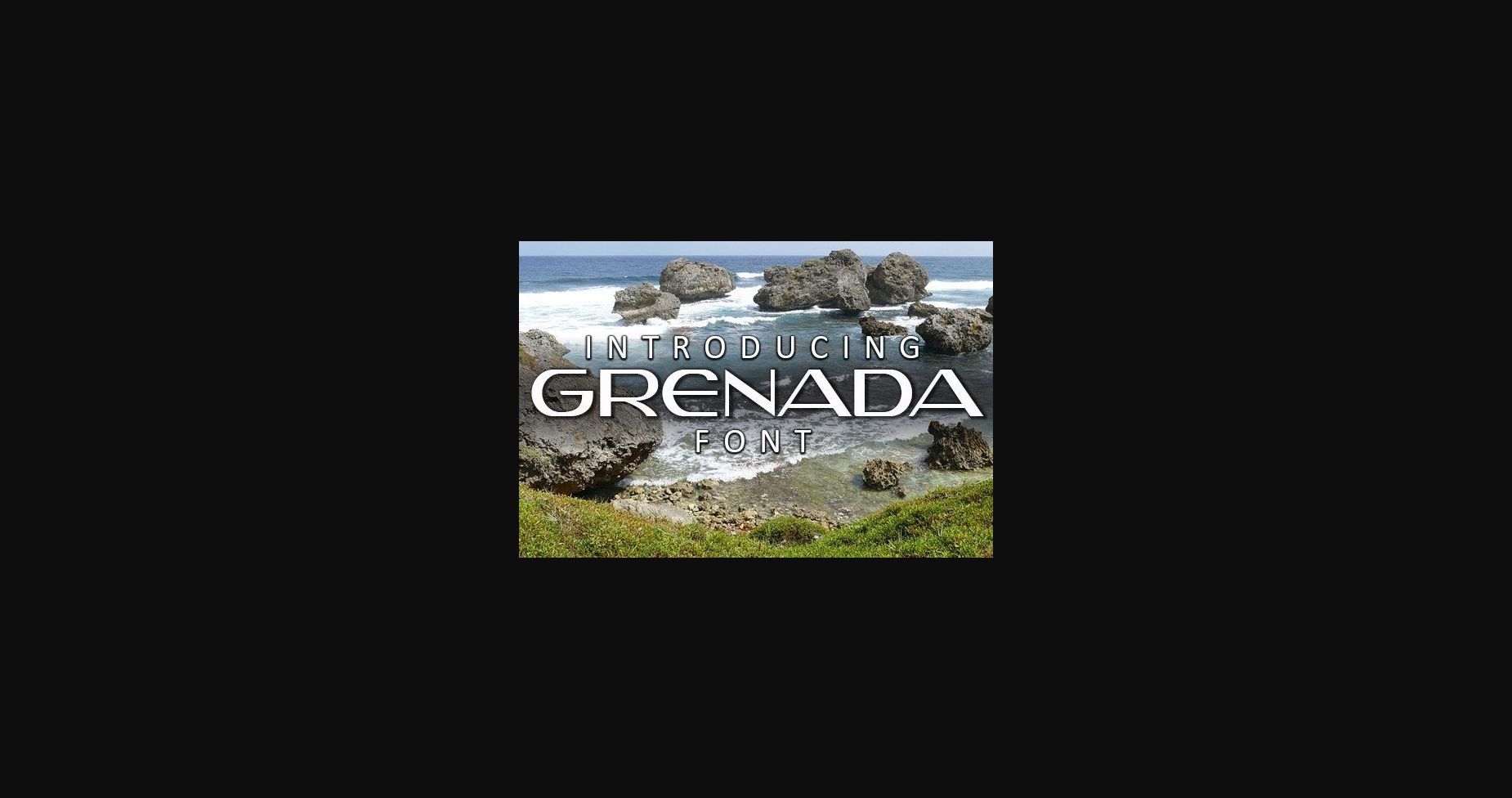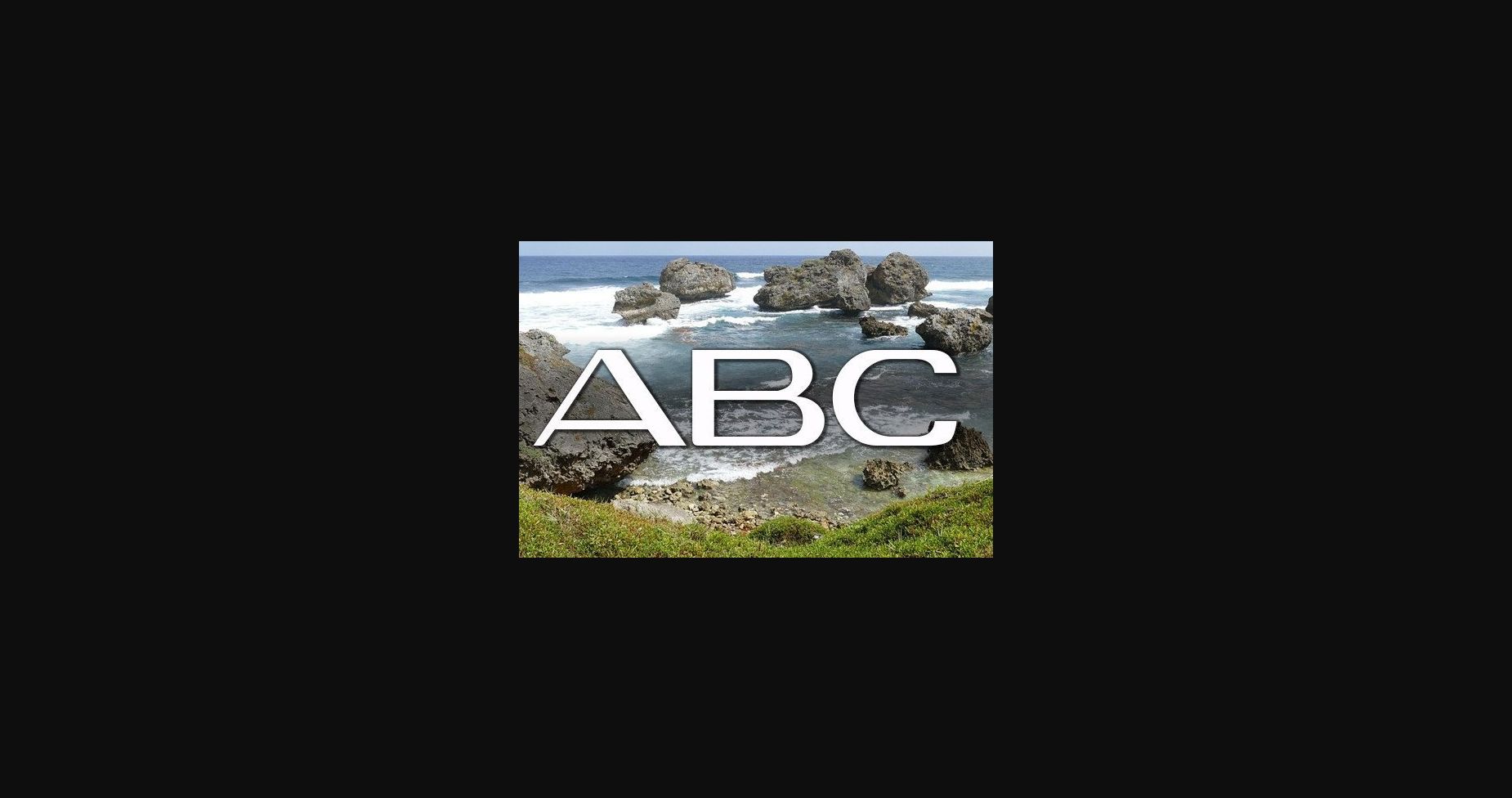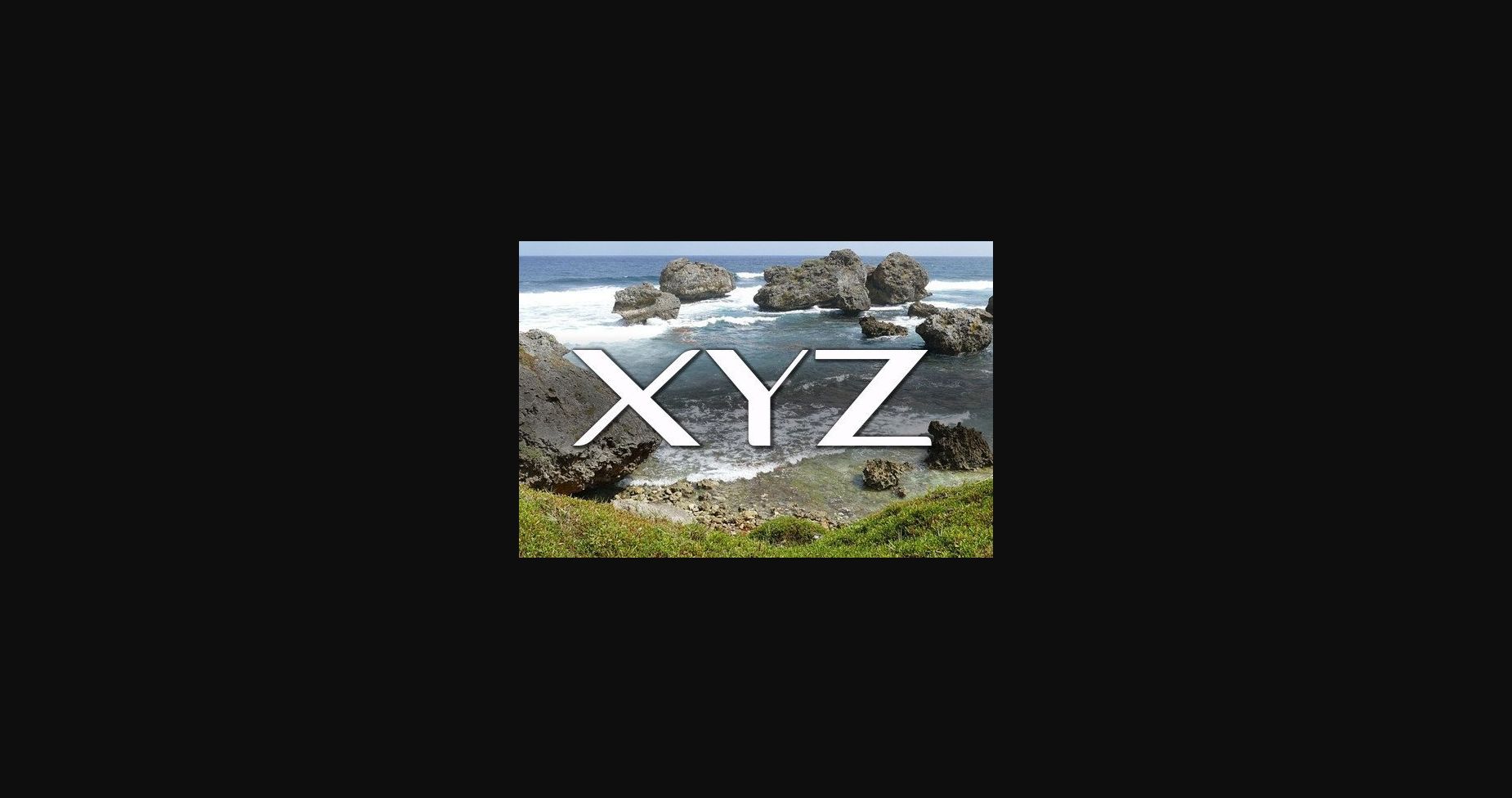
About Grenada Font
Grenada is a stylish sans serif font perfect for posters, flyers, or any designs you wish to create. Add it now to your fonts library, as it has the potential to enhance each of your designs!